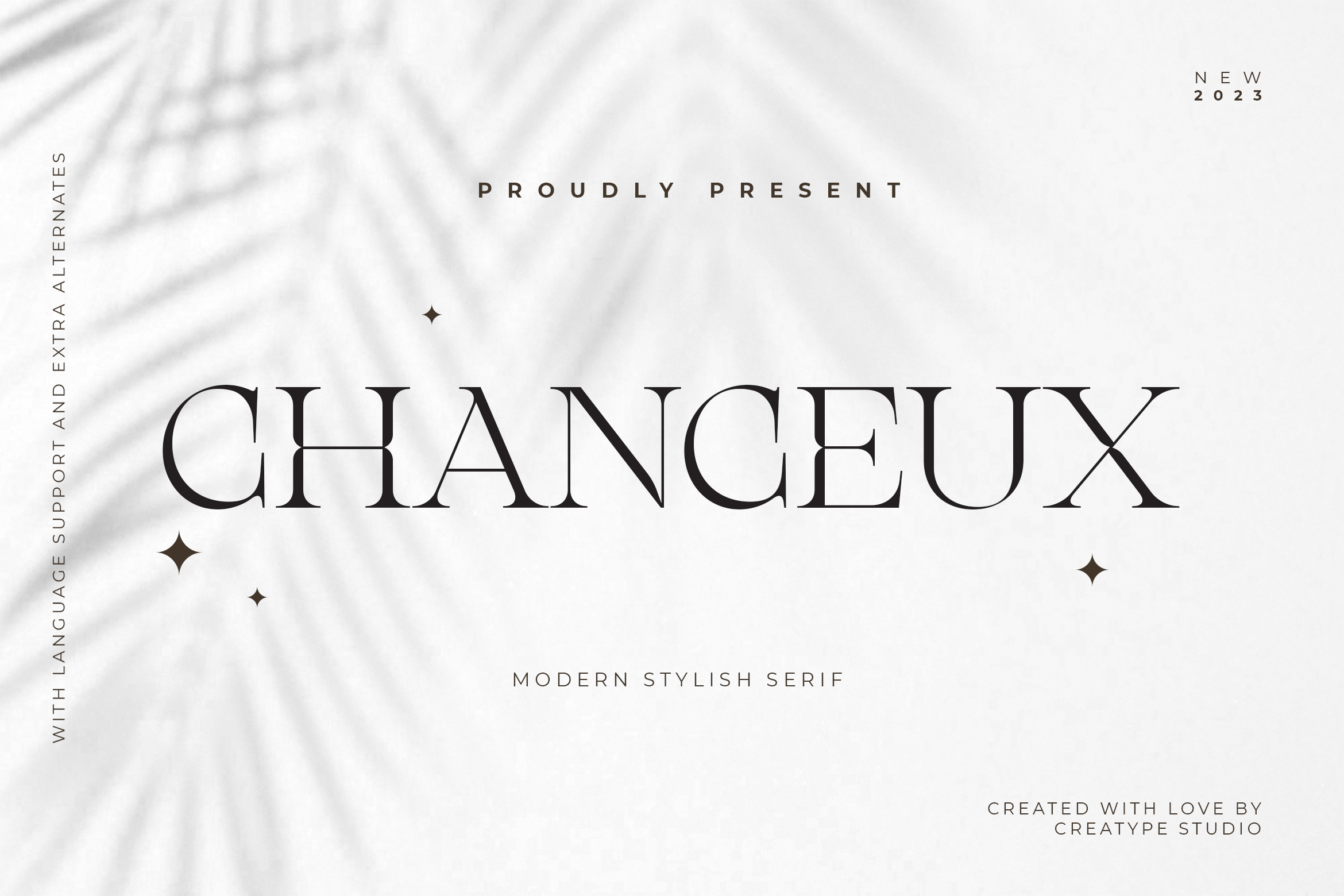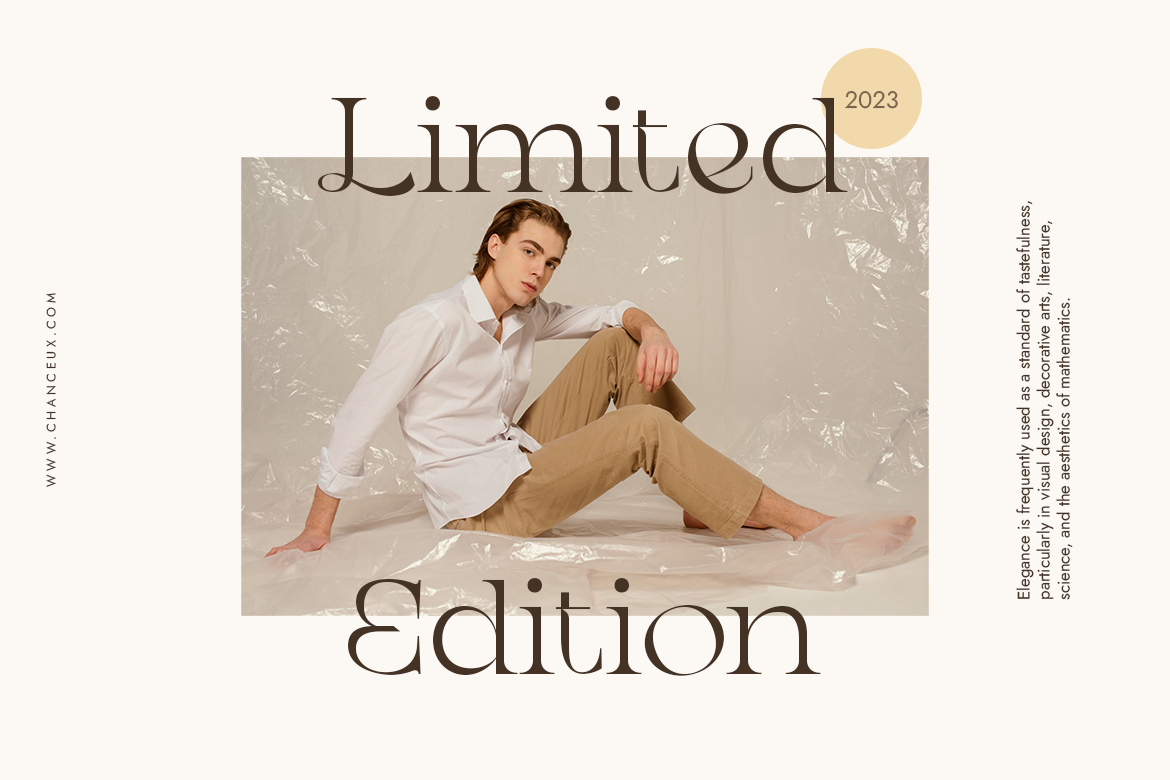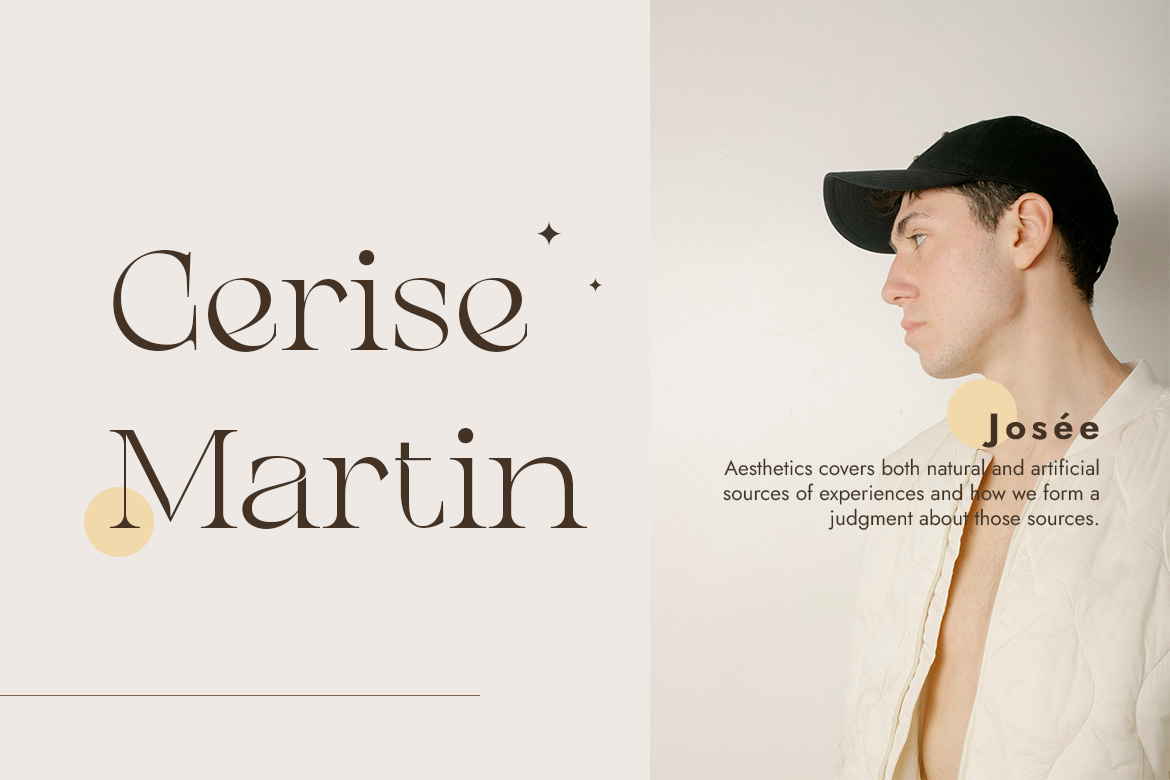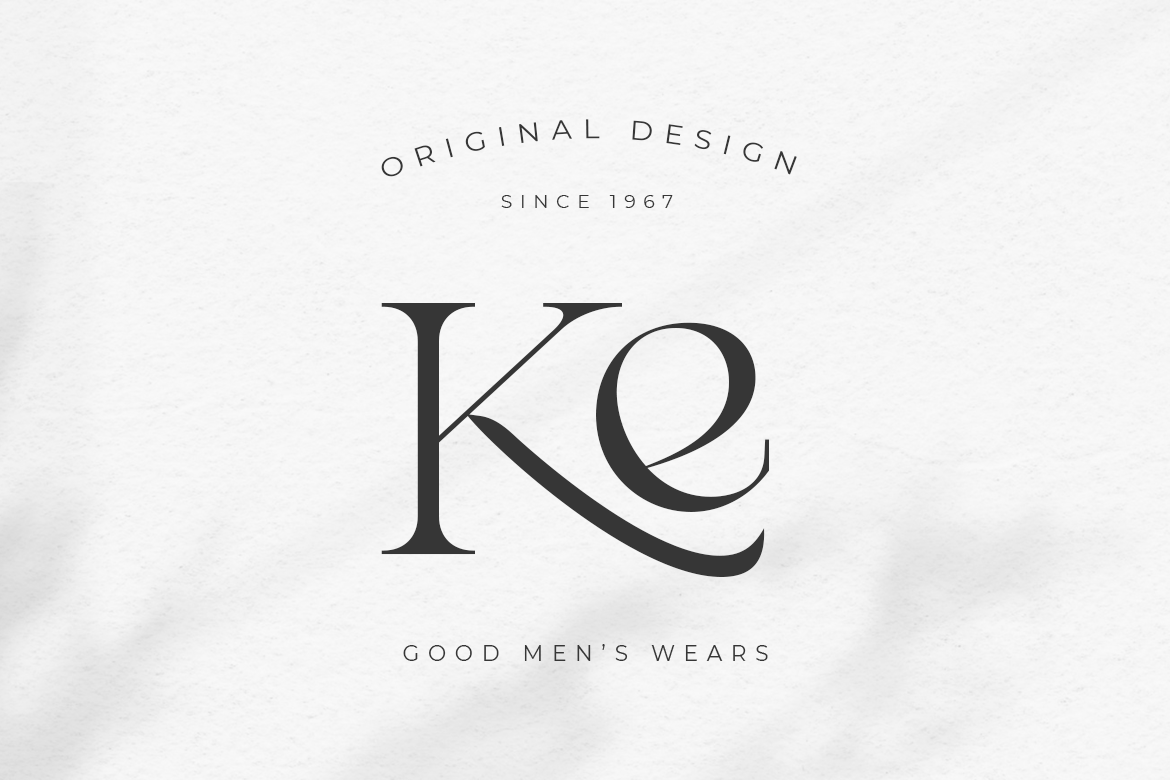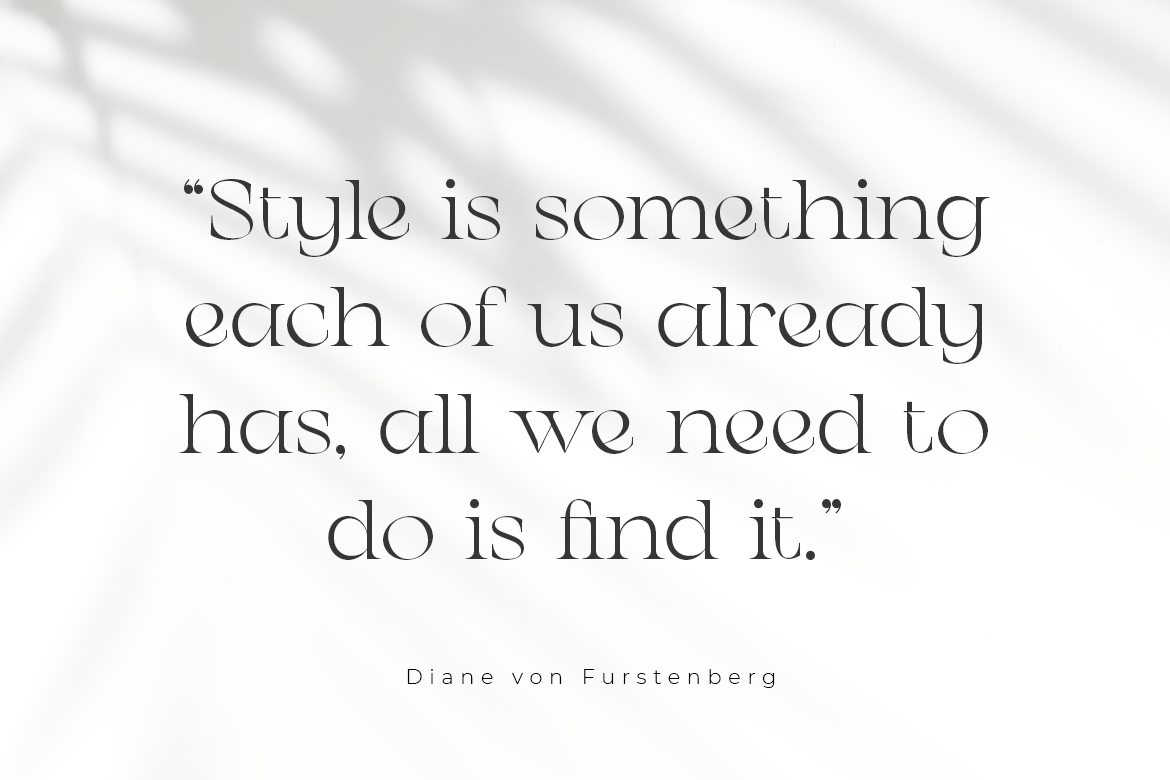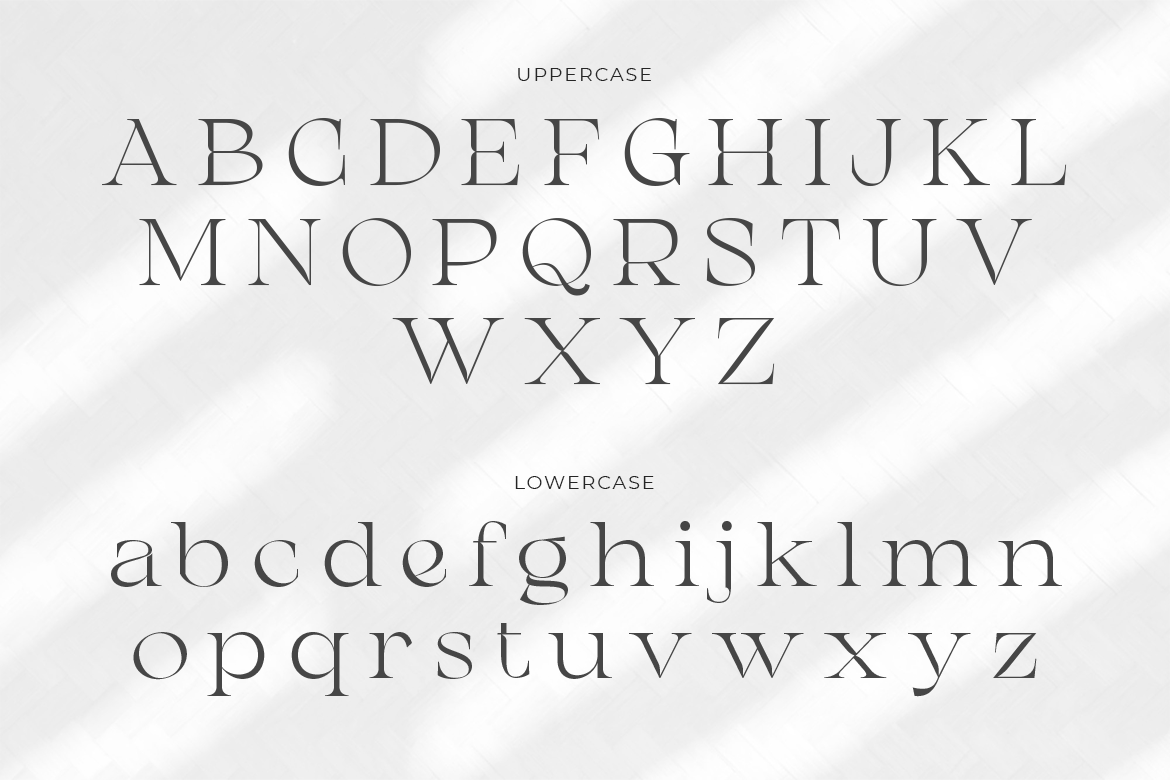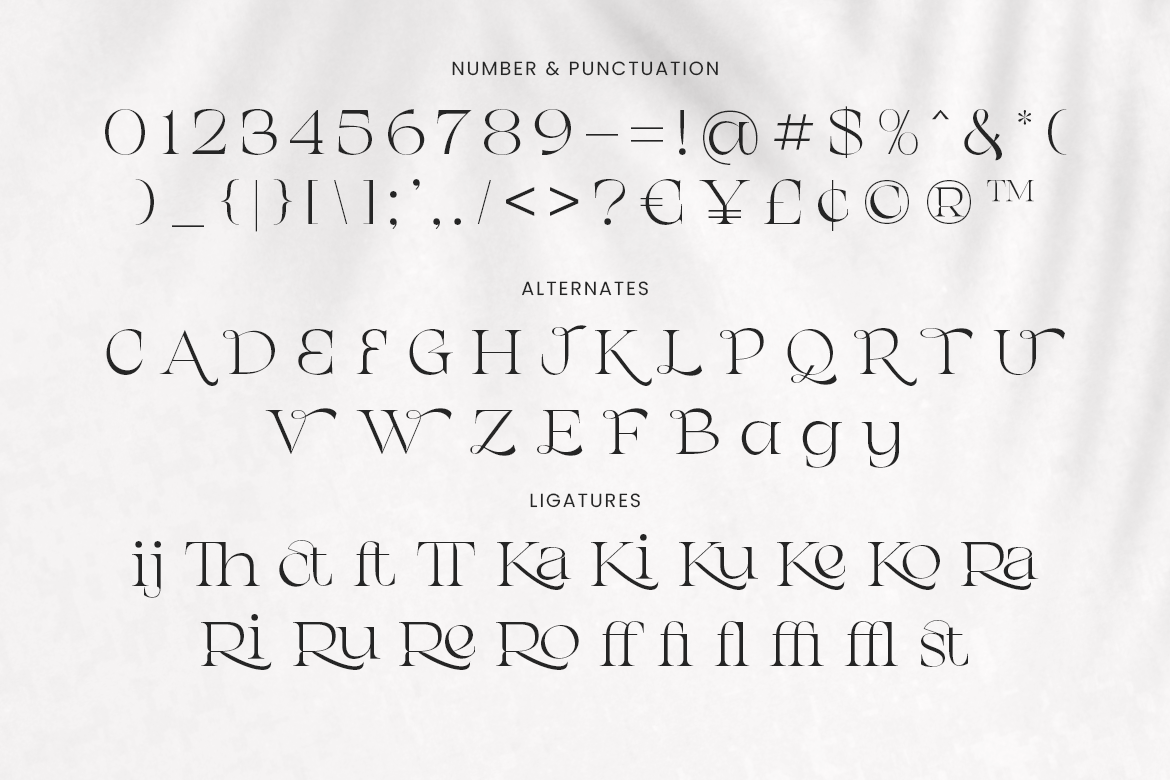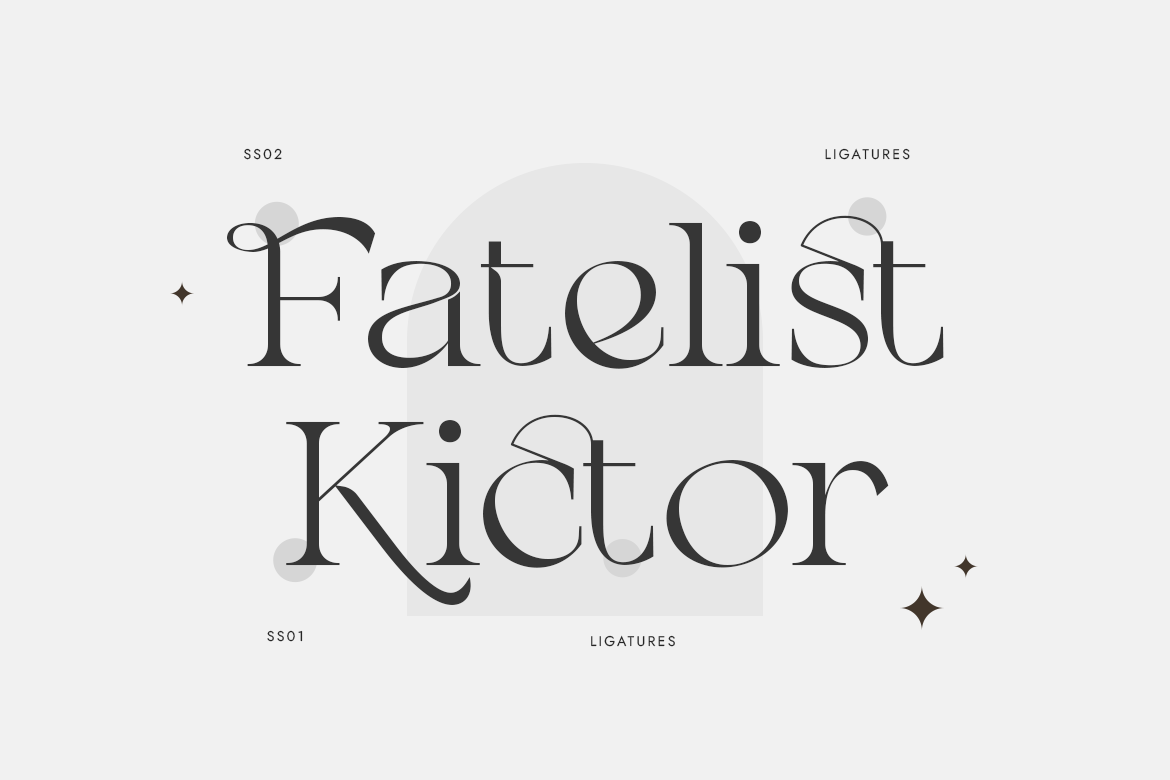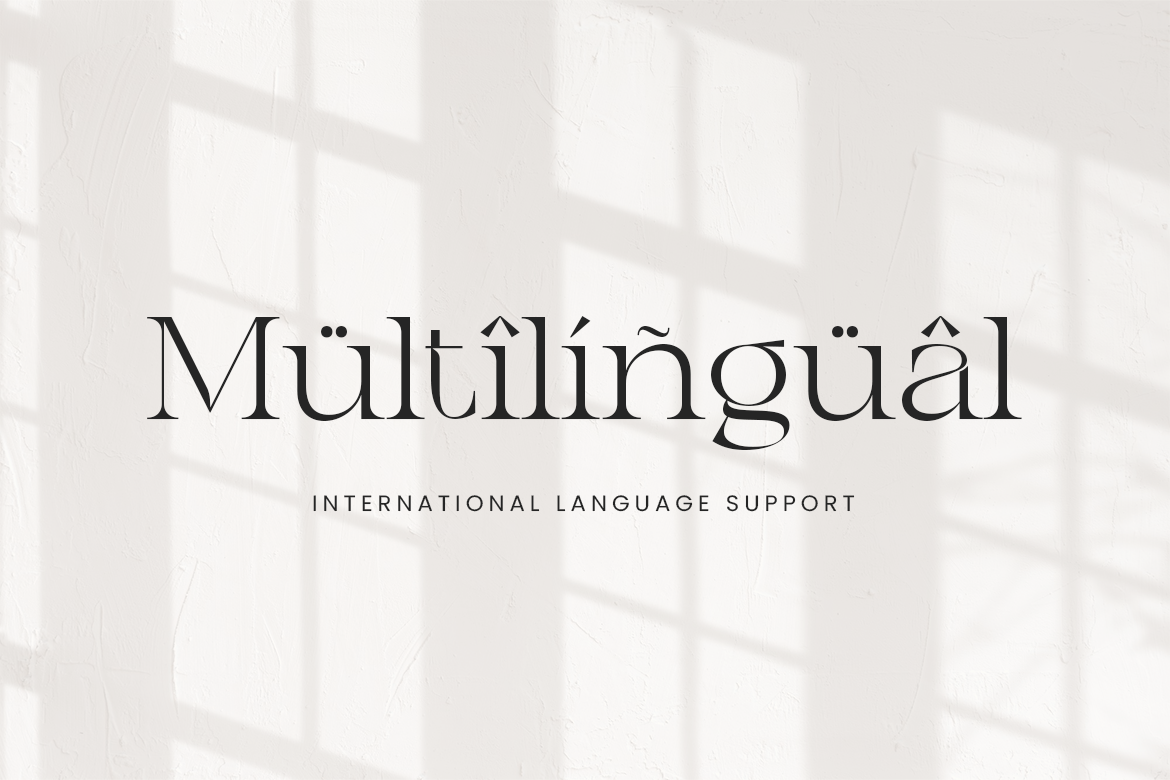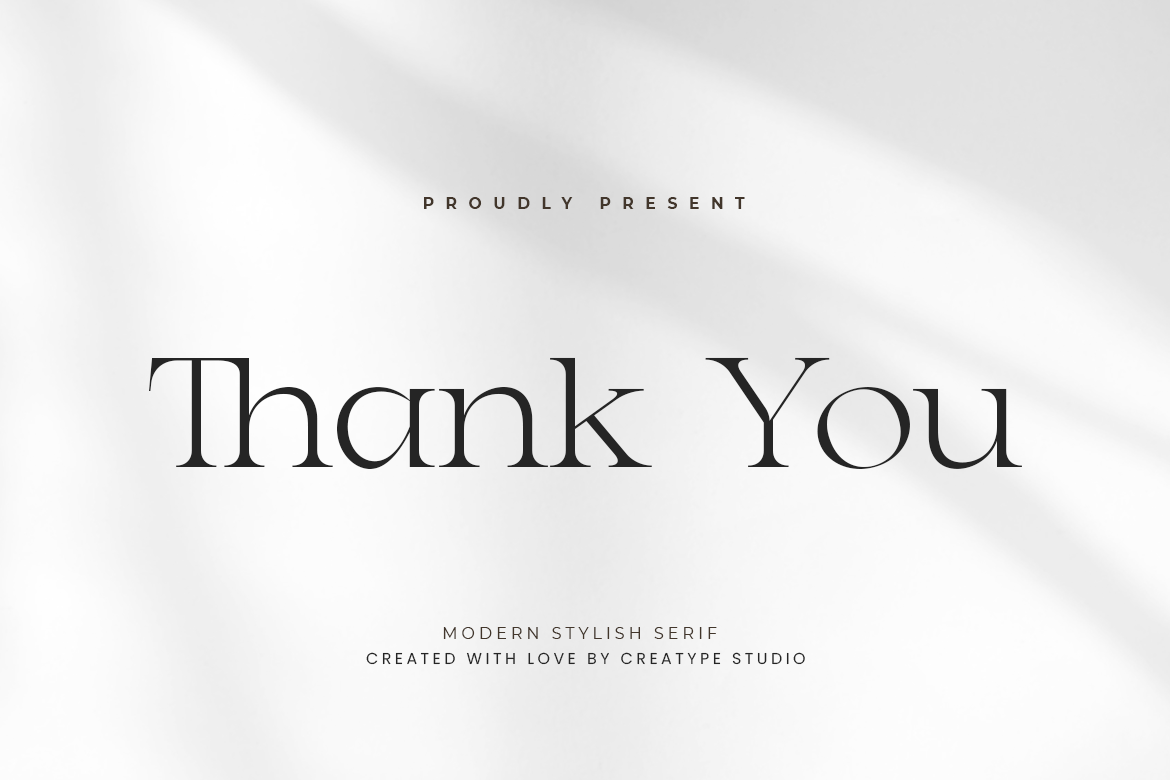
Chanceux Modern Stylish Serif
Chanceux, the Modern Stylish Serif typeface, elevates any design project with its refined and polished look, lending a touch of class and elegance to your work.
Chanceux is perfect for branding projects, logos, wedding designs, social media posts, advertisements, product packaging, product designs, label, photography, watermark, invitation, stationery, and any projects that need handwriting taste.